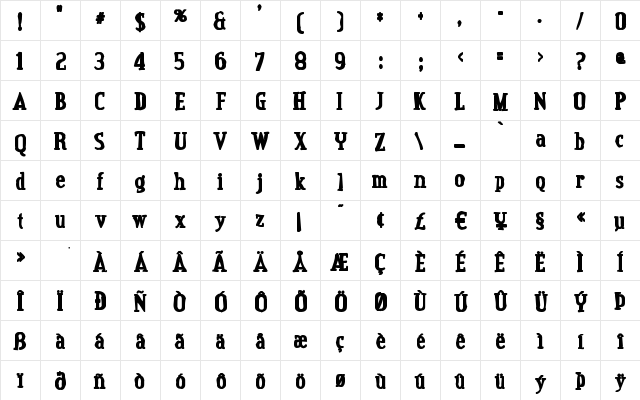
Credit Valley Ink Regular
Design Context for Credit Valley Ink Typeface
Credit Valley Ink takes a measured approach to typography — its balanced proportions and neutral character make it a reliable workhorse for both digital and print work.